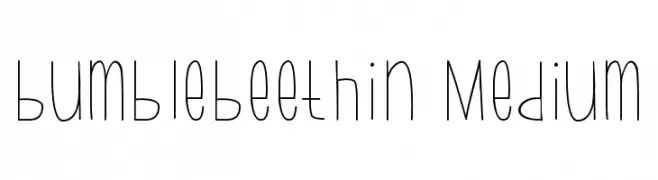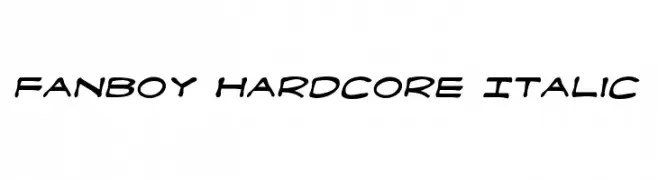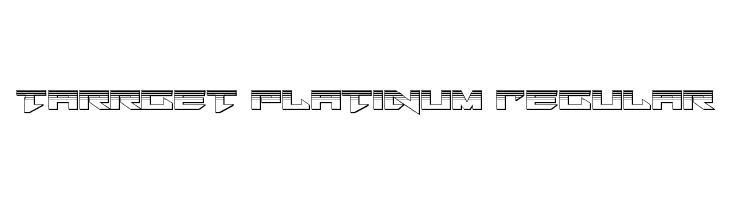
A playful handwritten font with smooth, flowing lines and dynamic letterforms.
A bold, italicized font with a dynamic and futuristic style.
A playful, thin-stroked font with a whimsical and modern style.
A futuristic, geometric font with a chrome-like, three-dimensional appearance.
A bold, geometric font with a modern-retro aesthetic, perfect for impactful designs.
A bold, italicized font with dynamic and energetic letterforms.
A bold, 3D font with lightning bolt motifs and a dynamic, energetic style.
A bold, stencil-style font with a military-inspired design.
A lively and expressive handwritten font with dynamic strokes and playful curves.